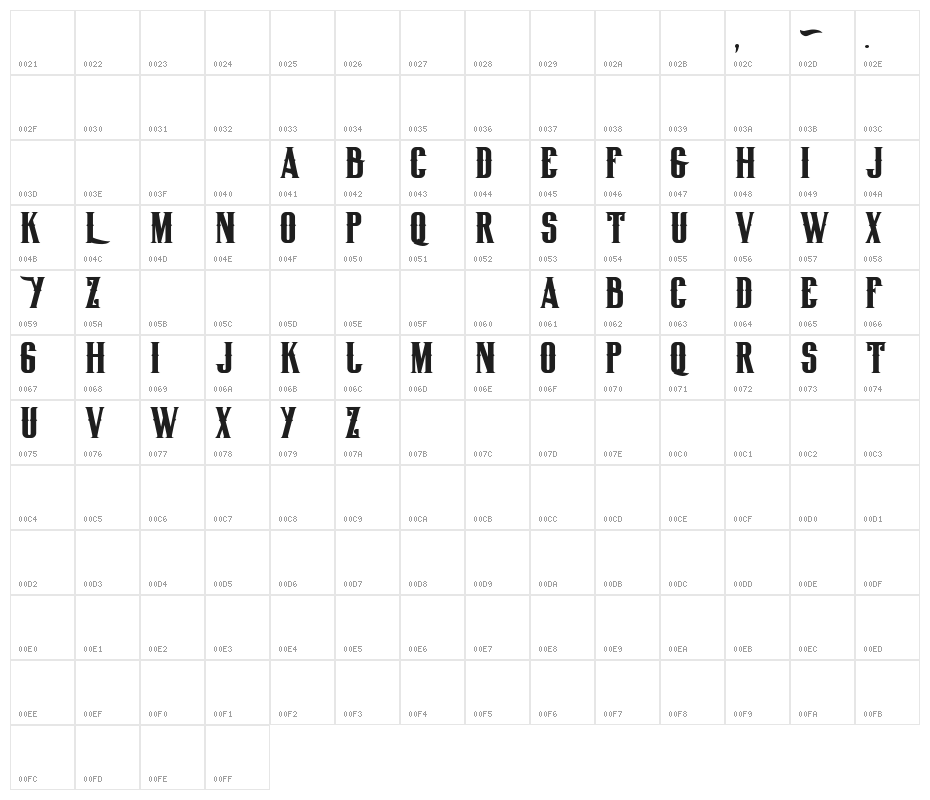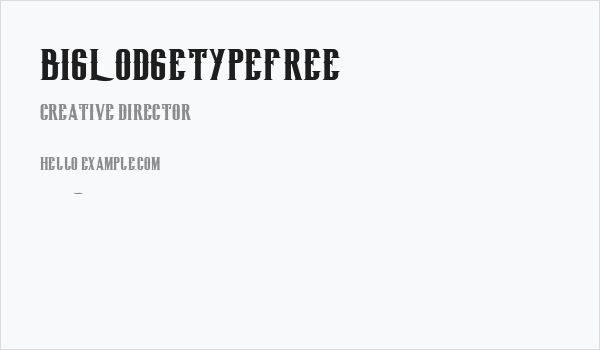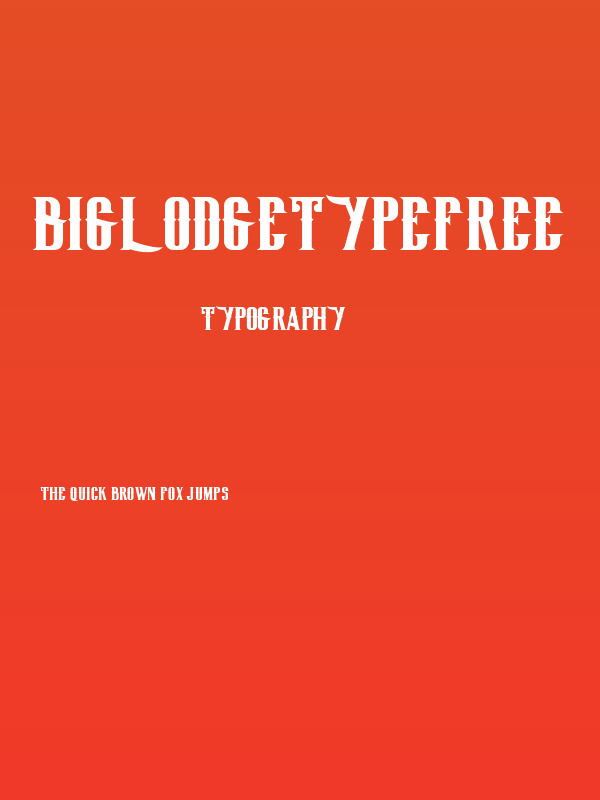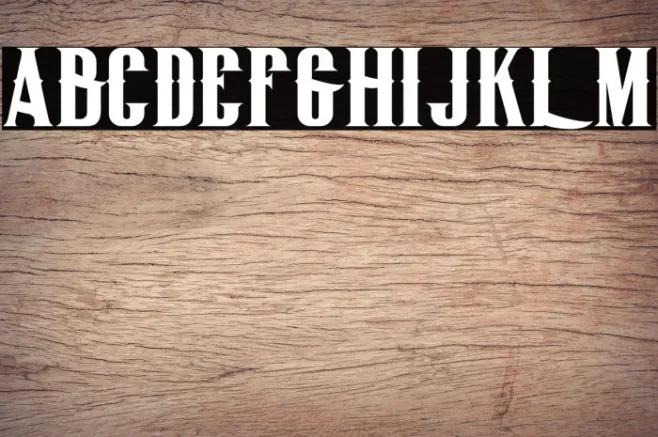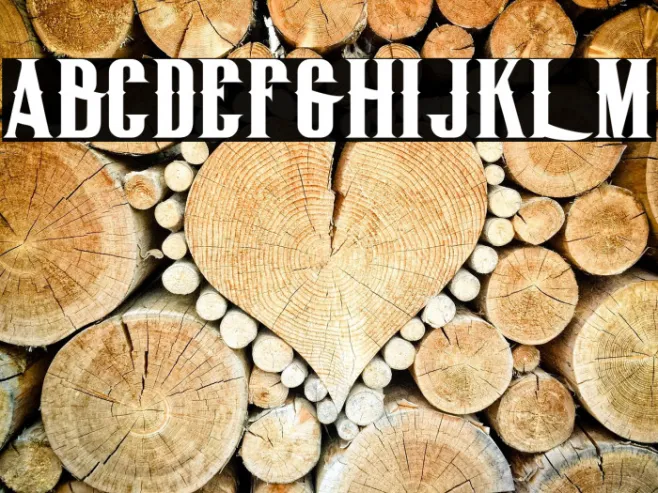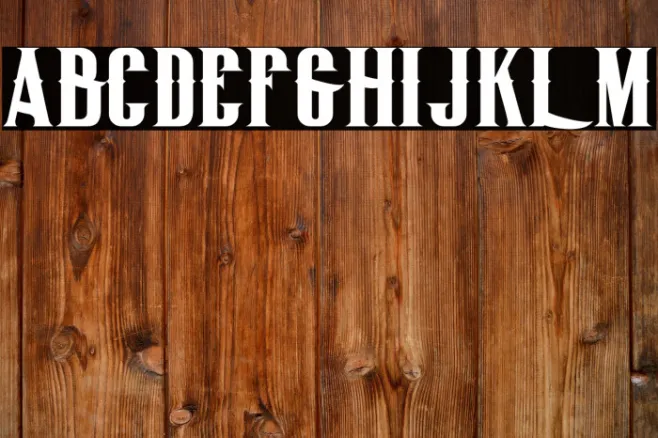
BigLodgeTypeFree Font
BigLodgeTypeFree Description
This font exhibits a bold and striking appearance, characterized by its strong, angular serifs and pronounced vertical strokes. The letters are designed with a high contrast between thick and thin lines, giving it a dramatic and impactful look. The uppercase letters are particularly dominant, with a slightly condensed form that enhances their imposing presence. The font's style is reminiscent of vintage western or circus posters, with a decorative flair that adds a touch of nostalgia and charm. Its unique design elements, such as the curved tails and sharp edges, make it stand out as a display typeface.
| Proposed Projects | Ideal for use in posters, signage, branding, and any project requiring a vintage or dramatic aesthetic. |